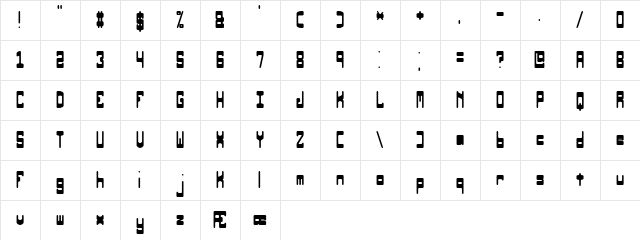
Orbicular (BRK) Regular
Design Context for Orbicular (BRK) Typeface
Orbicular (BRK) is a composed and adaptable typeface that performs quietly and consistently across a wide range of design contexts.